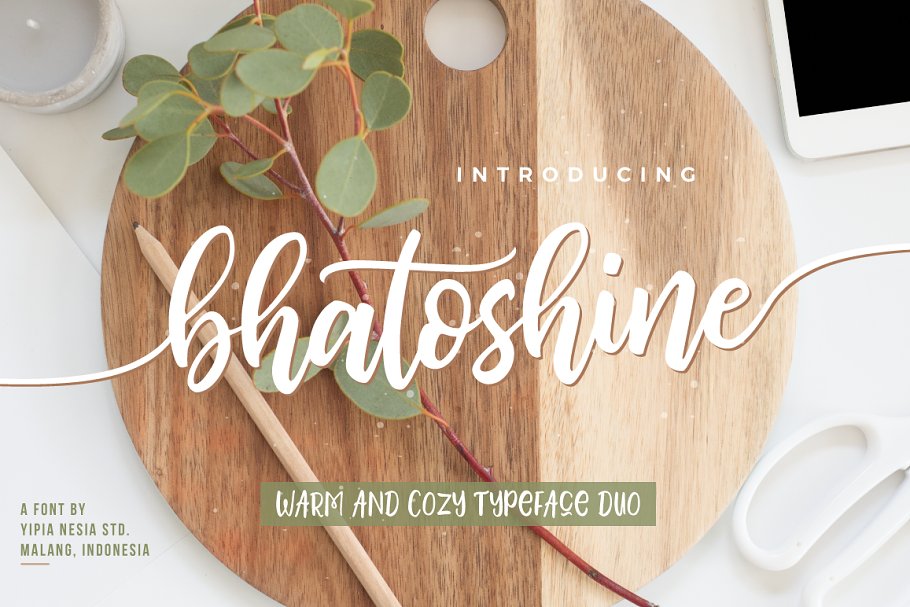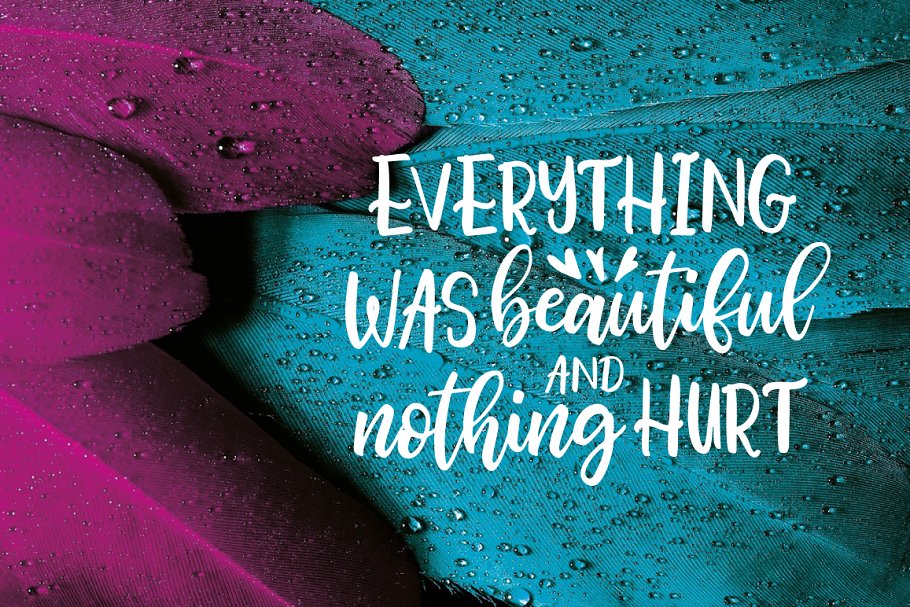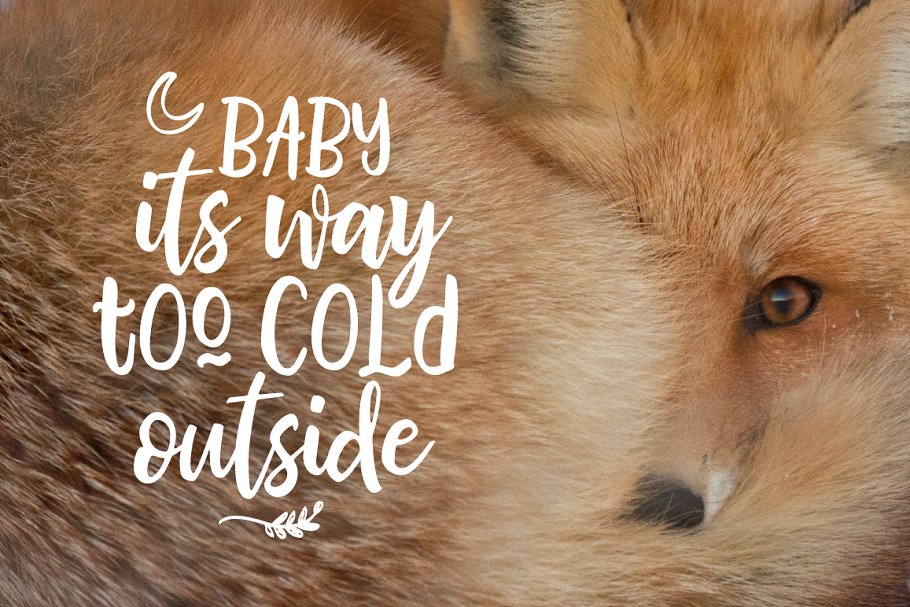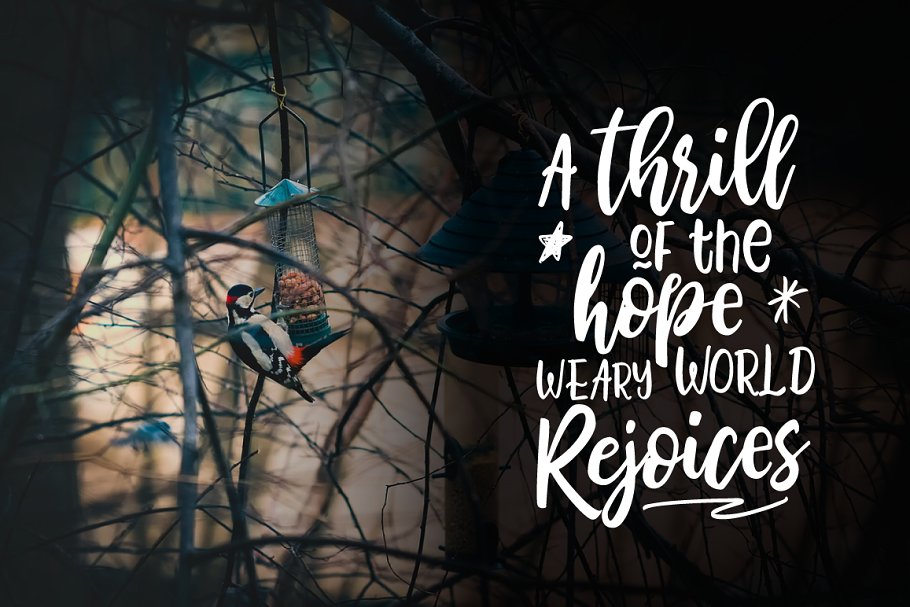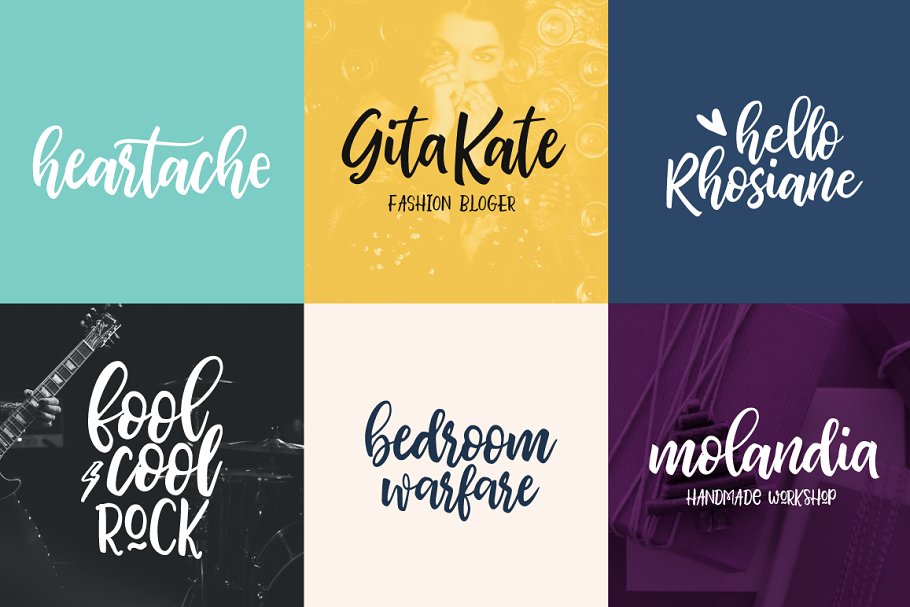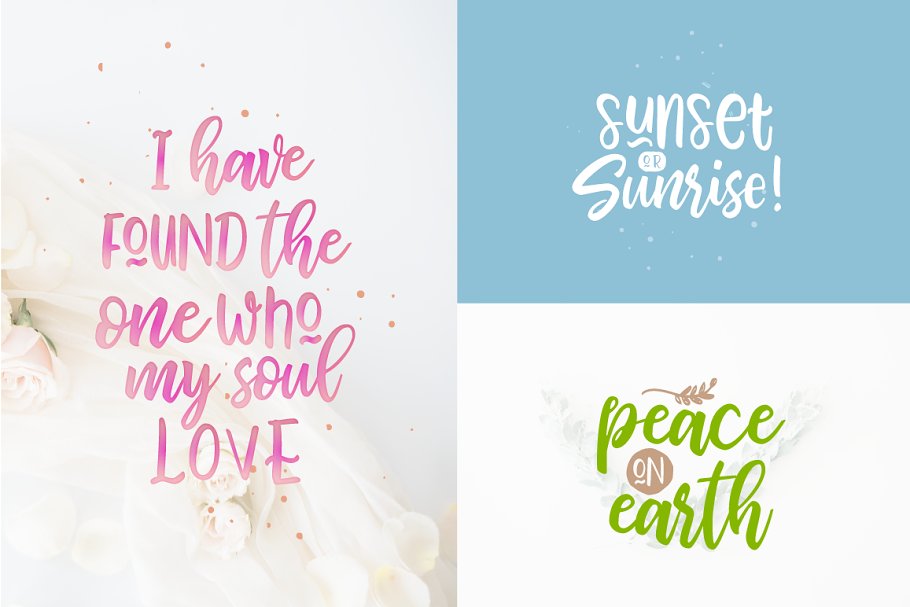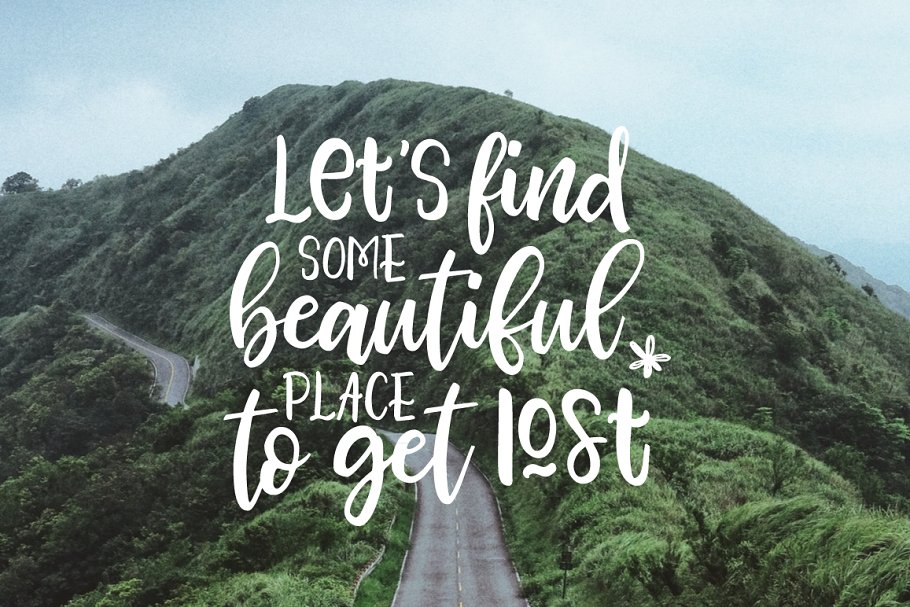
About the Bhatoshine Fancy Duo Font
SALE : Get This Font in Our MINI FONT BUNDLE FOR ONLY $18 : https://creativemarket, com/neSia/2213073-Mini-Font-Bundle-Typia-NesiaBhatoshine Fancy Font Duo, A hand brushed, fun, warm, and cozy typeface duo with extras, These 2 hand brushed fonts are perfectly combine with one another, The Bhatoshine Regular font combines with the Bhatoshine Caps font to make each word unique, and BOOM! The beautiful typography!Suitable for any design needs, modern invitation design, branding, stationery design, blog design, modern advertising design, invitation, Art Quote, Home decor, Book/Cover Title, Invitation, special events, birthday, custom mug, pillow, t-shirts, any brush lettering needs and more
What’s Included :Bhatoshine Reguler ( ttf and otf ) – a hand brused script font comes with upper and lowercase Standard Characters, Punctuation, Numerals, And other Glyphs variation of the OpenType features such as Stylistic Alternates, Stylistic Sets and some Ligatures
Alternates are available for lowercase characters, Bhatoshine Caps ( ttf and otf ) a hand brused font containing uppercase only characters, punctuation, numerals, These 2 hand brushed fonts are perfectly combine with one another to create beautiful typography